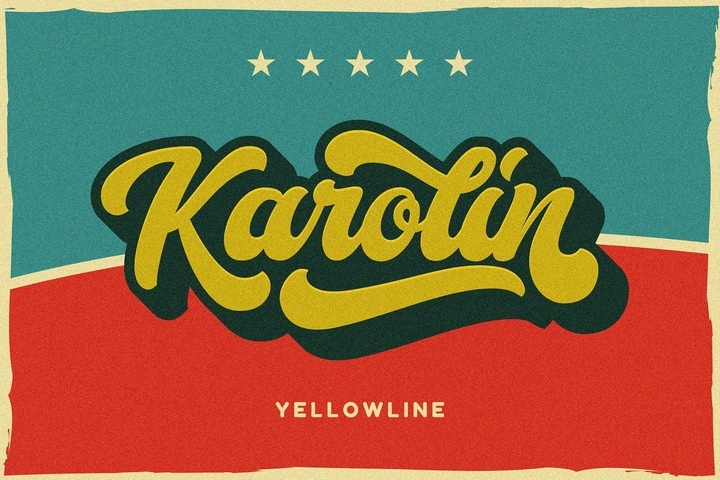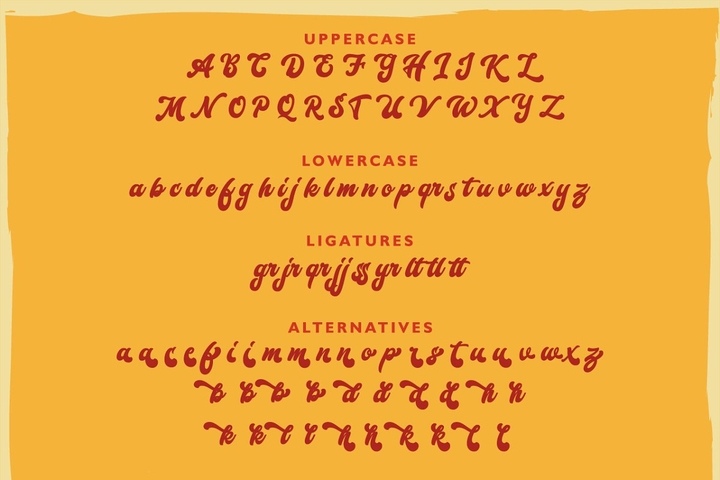
Karolin Retro Font
Karolin Retro Font is perfect for vintage fashion campaigns, nostalgic beauty brands, retro diner signage, classic record album covers, vintage-inspired boutiques, nostalgic advertising materials, retro gaming graphics, throwback lifestyle publications, vintage wedding invitations, and classic americana branding.
What makes Karolin Retro Font so exciting is its extraordinary ability to transport viewers back to the golden age of mid-century design through letterforms that seem infused with the optimistic spirit and stylish confidence of vintage America. This nostalgic typeface captures the essence of retro glamour and classic americana with characters that radiate the charm, sophistication, and cultural confidence that defined an era when design was bold, colors were vibrant, and the future looked endlessly promising. The font's vintage design elements perfectly balance historical authenticity with contemporary usability, creating an indispensable tool that communicates nostalgic charm, retro sophistication, and classic american style, making it essential for brands celebrating the timeless appeal of vintage aesthetics and mid-century modern design.
Karolin Retro Font comes in multiple font families including Regular, Bold, Light, Italic, Bold Italic, Vintage, Classic, and Nostalgic variations. Each family member maintains the core retro characteristics while offering different vintage intensity levels and stylistic approaches to suit various throwback and nostalgic design requirements.
The Karolin Retro Font Free Download offers designers and vintage brands an incredible opportunity to incorporate authentic mid-century charm into projects that celebrate the golden age of american design and retro culture. This remarkable typeface distinguishes itself through its unique ability to communicate themes of nostalgic elegance, vintage sophistication, and classic americana appeal. Whether you're developing retro fashion brands, creating nostalgic advertising campaigns, or designing vintage-themed celebrations, this font ensures your message radiates the authentic charm and stylistic confidence that vintage enthusiasts and nostalgia lovers truly appreciate and seek.
The retro precision in Karolin Retro Font makes it particularly effective for vintage-inspired brands and nostalgic entertainment where conveying authentic mid-century style and retro sophistication is crucial for connecting with audiences who appreciate genuine vintage aesthetics and classic american design heritage. Its nostalgic letterforms work beautifully across both traditional and contemporary applications, from vintage poster reproductions to modern retro-themed websites, maintaining consistent vintage appeal and nostalgic authenticity.
Vintage branding professionals appreciate how Karolin Retro Font transforms ordinary communications into delightful expressions of retro charm and mid-century sophistication. The typeface's nostalgic character set includes special vintage symbols, retro decorative elements, and classic americana features that enhance the overall throwback atmosphere of any vintage-focused project.
For creative professionals serving vintage fashion, retro entertainment, and nostalgic lifestyle brands, Karolin Retro Font serves as the perfect foundation for establishing memorable visual identities that capture the essential qualities of retro glamour, vintage sophistication, and classic americana charm that define successful brands celebrating the enduring appeal of mid-century design and the timeless allure of vintage aesthetics in contemporary culture.